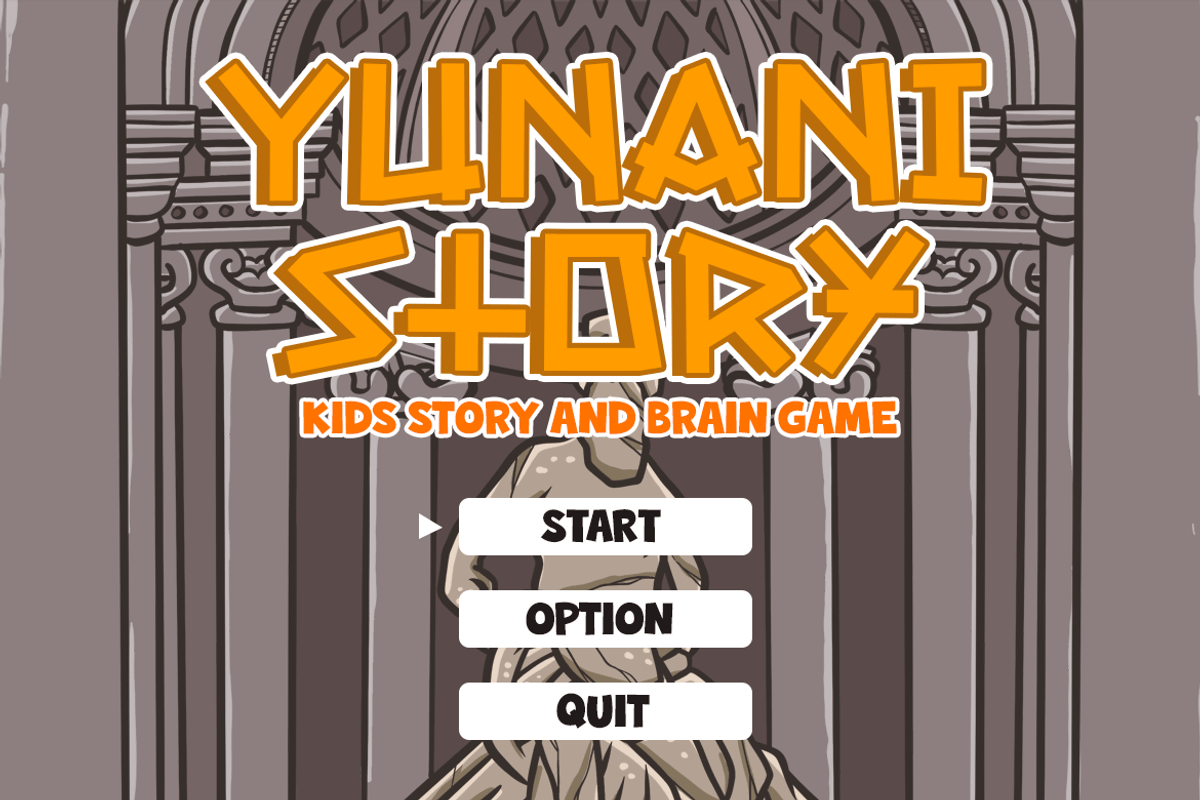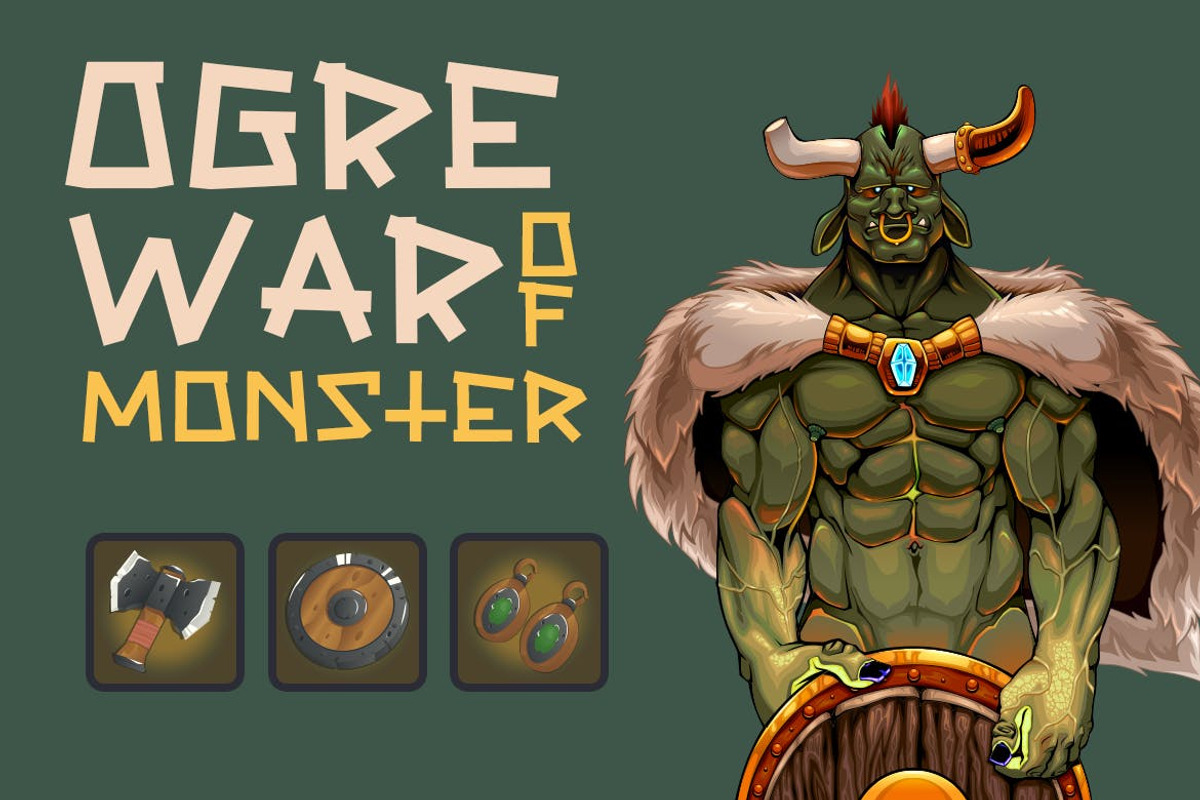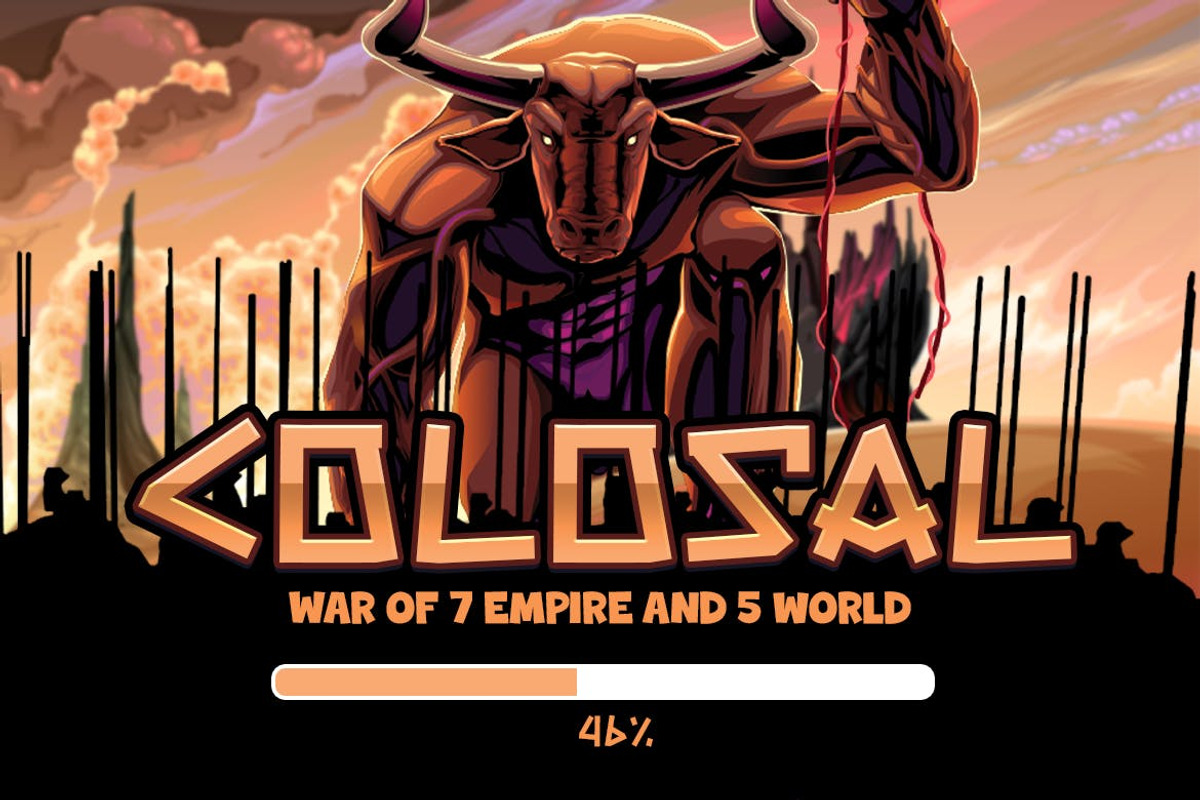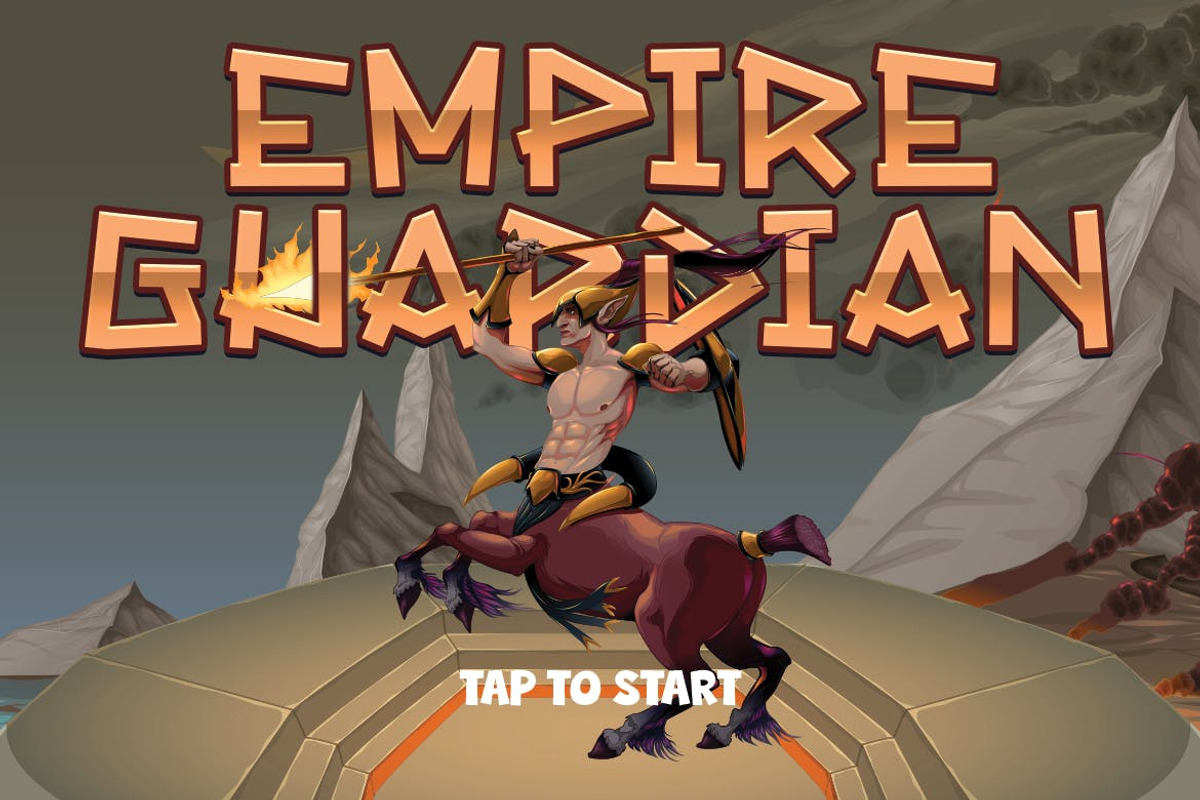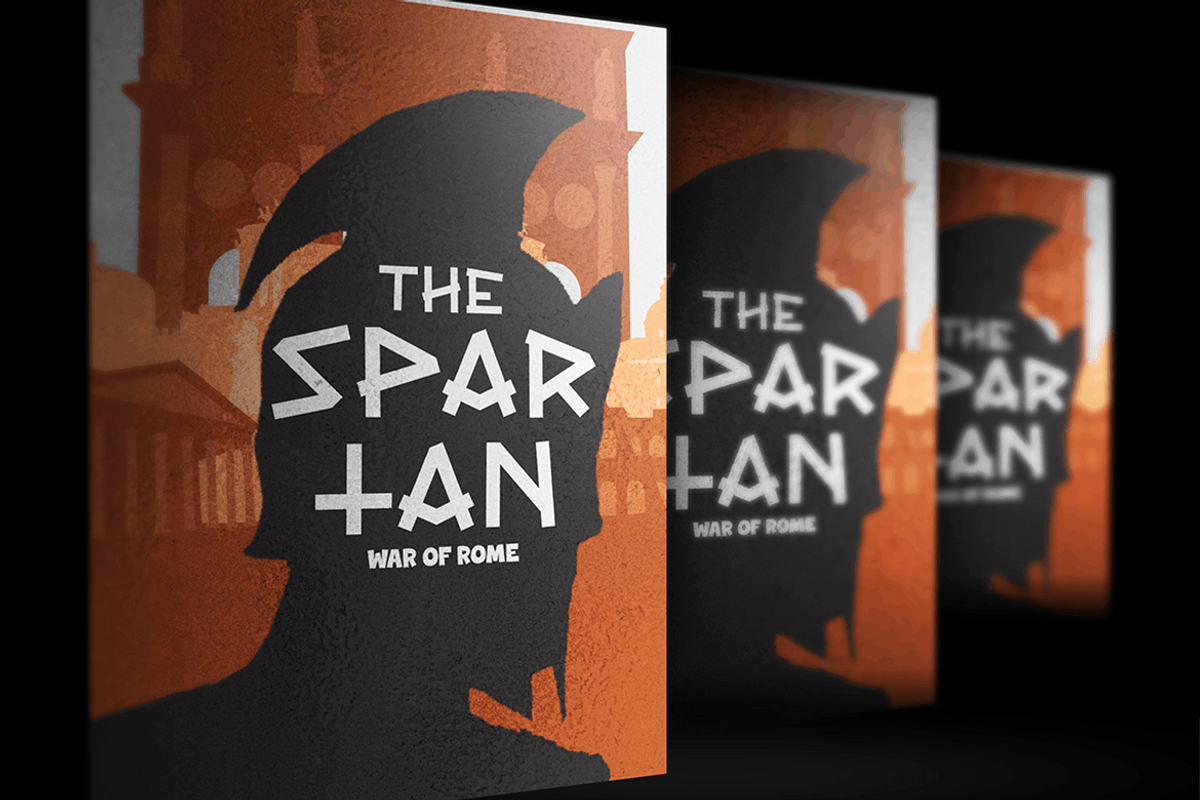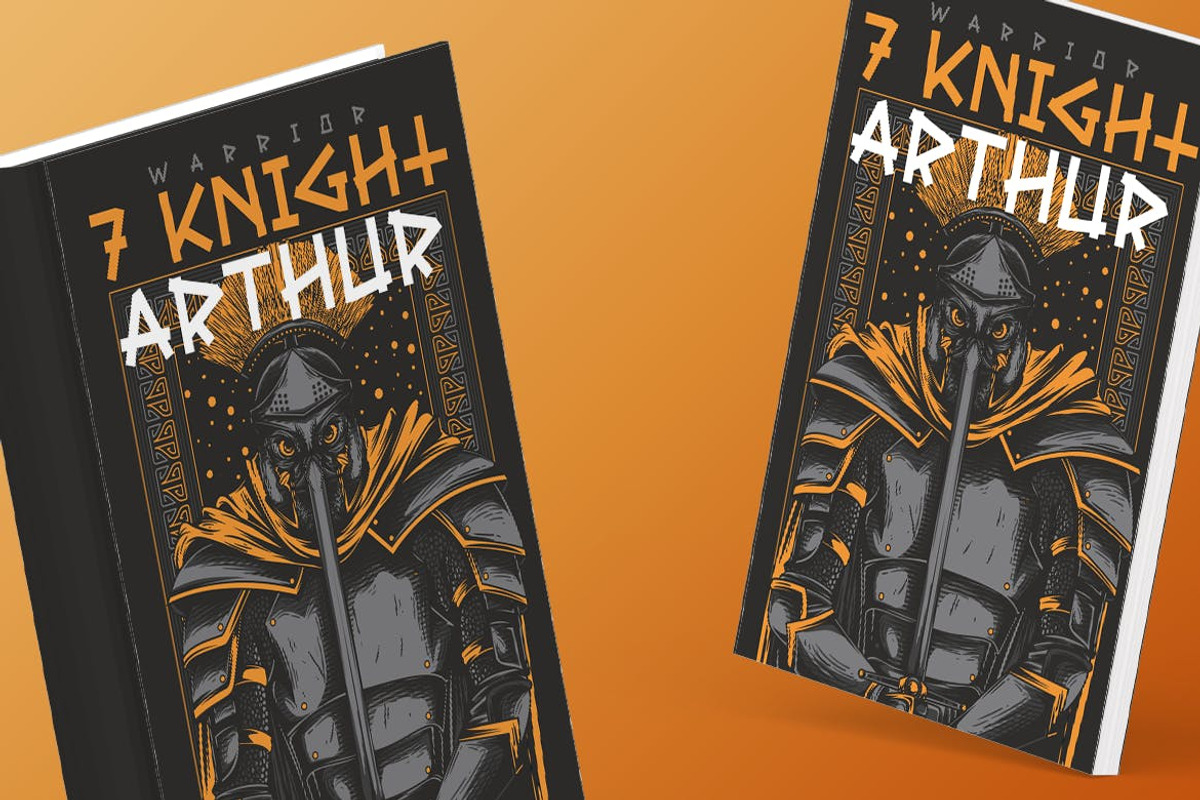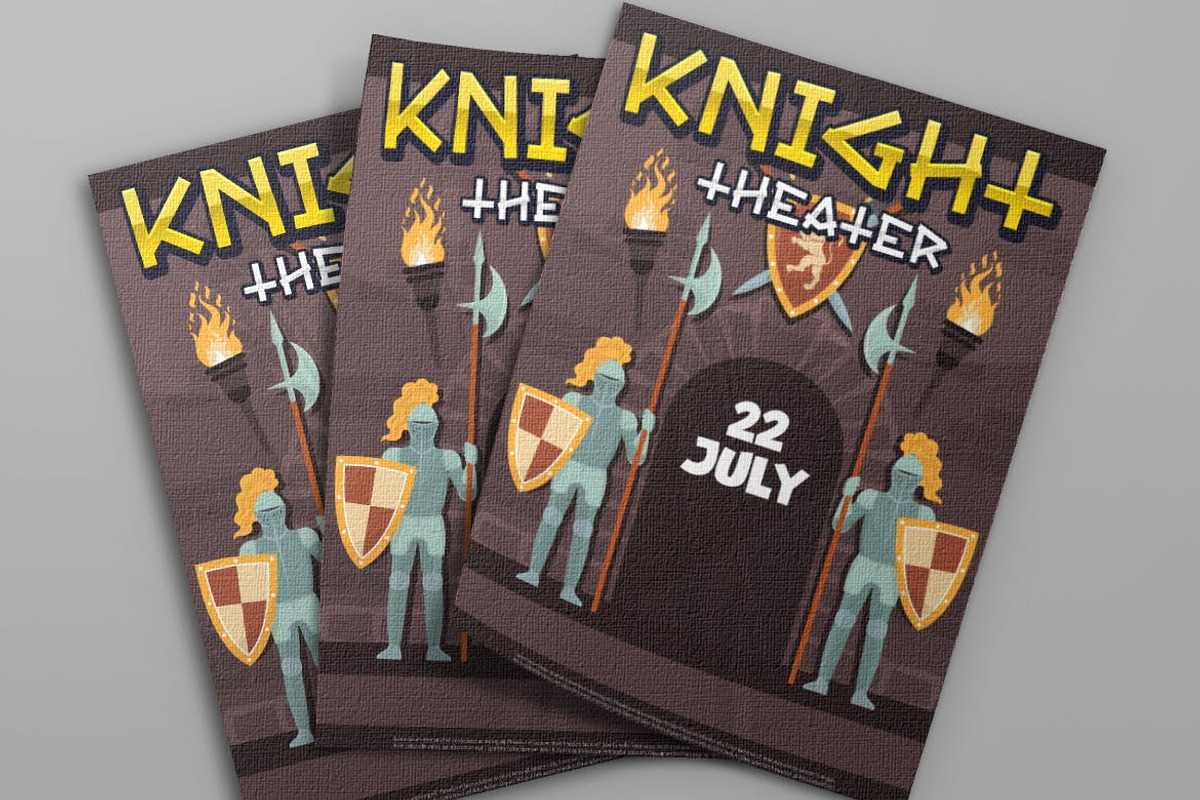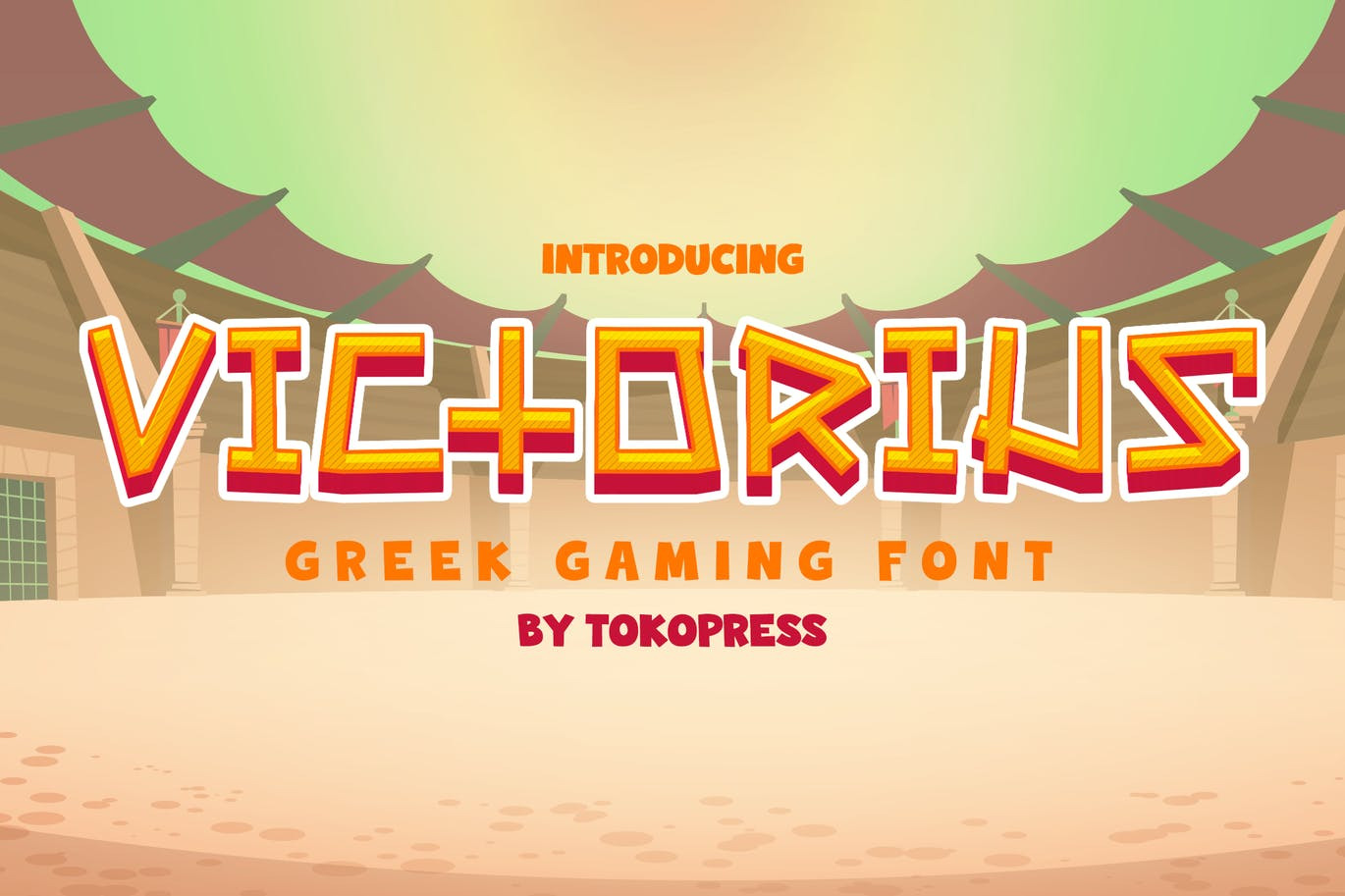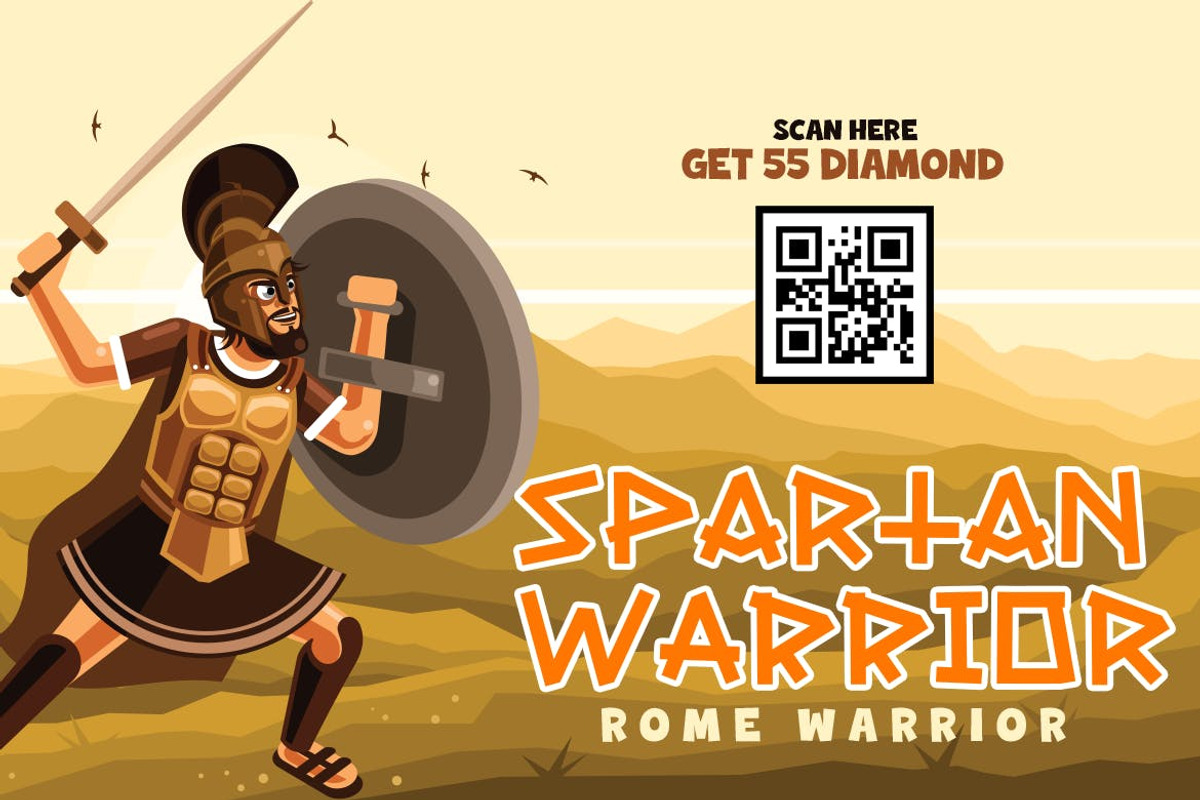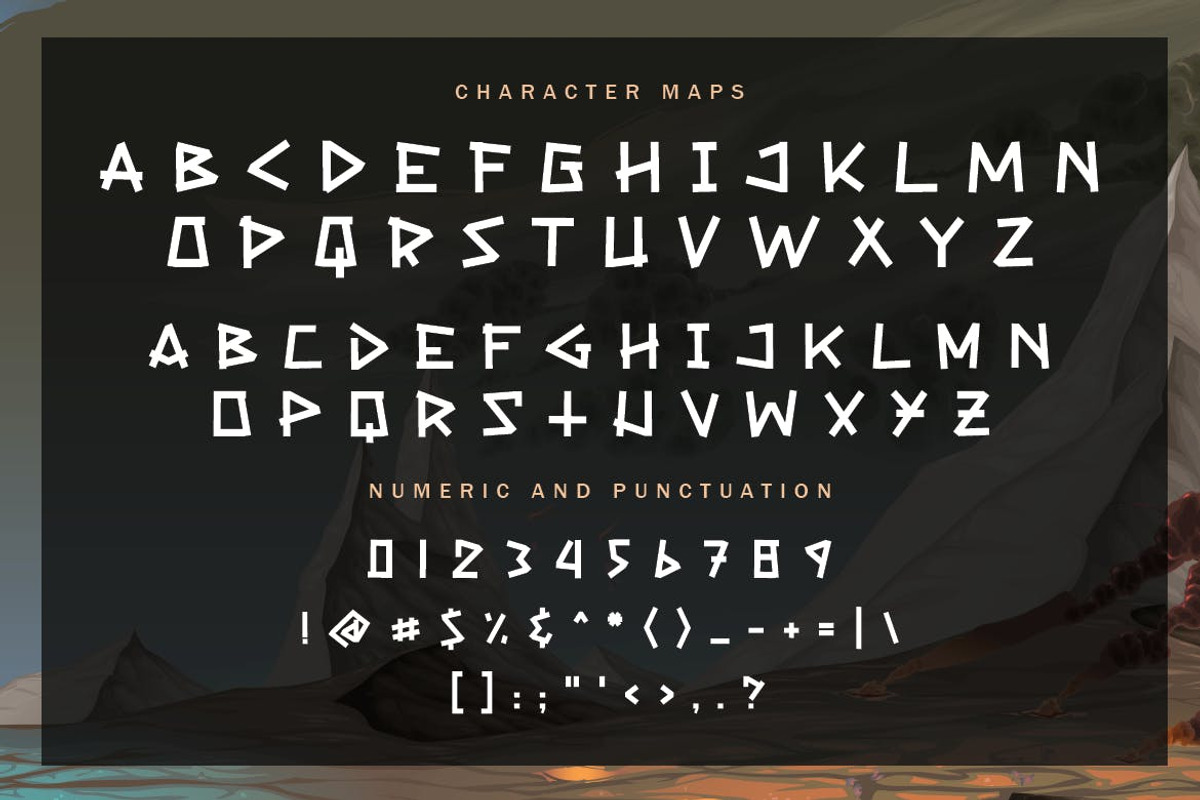
Victorius - Gaming font
Ancient greek and mythology still keeping us in awe. The vast story of heroes and monster, their dynamic, war, and alliance still have plenty to be digging on.
Suit perfectly for kids markets, online games, stationery, t-shirt and book cover font, posters, movie titles, youtube covers, youtube thumbnails, social media page covers and so on...